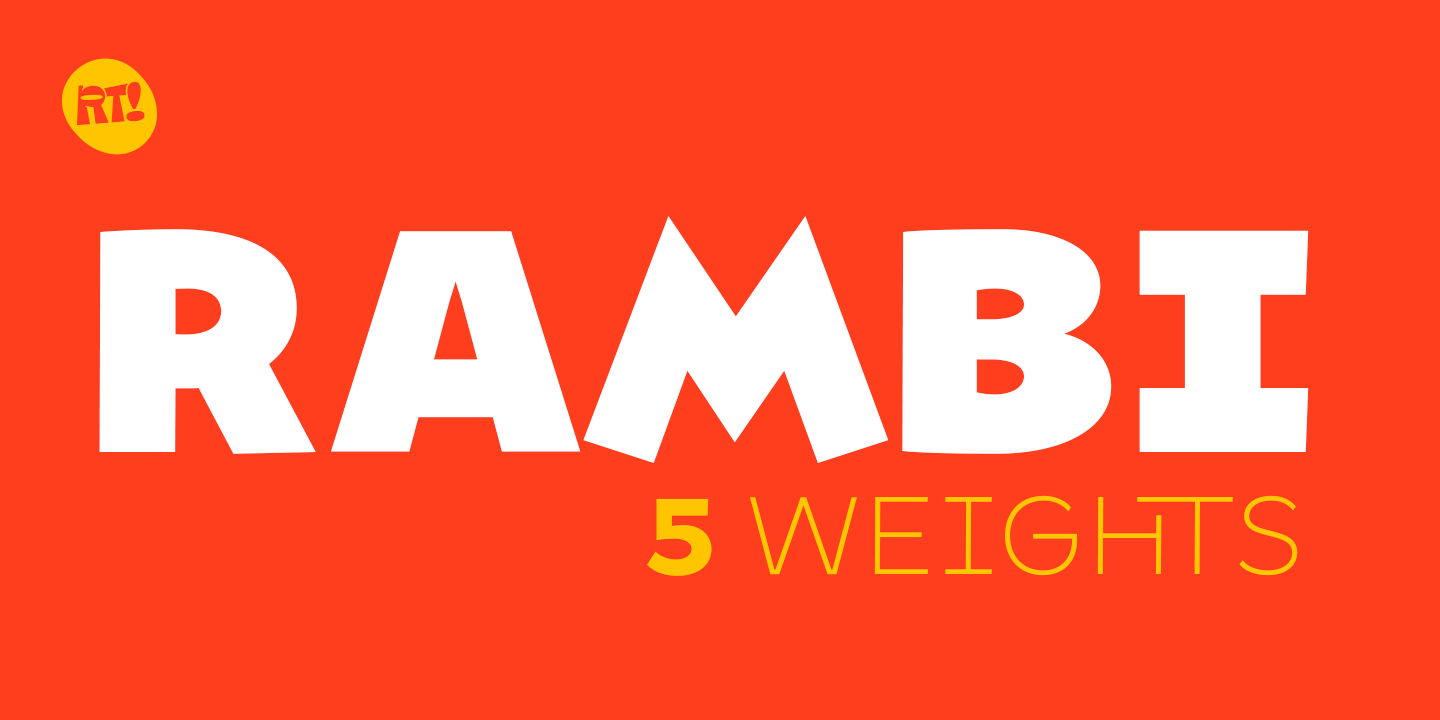
Rambi Font is perfect for action movie branding, military-themed designs, adventure gaming graphics, tactical equipment logos, extreme sports promotions, rugged outdoor gear packaging, warrior-inspired merchandise, and powerful designs that require unstoppable force and combat-ready intensity.
This font is exciting because it embodies raw power and relentless determination through its bold, aggressive letterforms that seem forged in the heat of battle and tempered by unwavering resolve. The commanding character design reflects the spirit of legendary warriors and action heroes, making it perfect for brands seeking to convey strength, courage, and unstoppable momentum.
Rambi Font belongs to the action display font family, featuring combat styling and warrior elements that enhance its effectiveness for military and action-focused design applications.
Whether you're creating action entertainment branding or military-inspired graphics, Rambi Font Free Download delivers maximum combat impact and warrior authenticity. This typeface perfectly captures the essence of heroic determination while maintaining excellent functionality for contemporary applications. The font's powerful presence works exceptionally well in action promotions, gaming communications, and adventure marketing materials, providing strong readability while maintaining its warrior character that transforms any design with combat strength and creates unforgettable action-packed experiences across all media platforms and adventure entertainment communications.